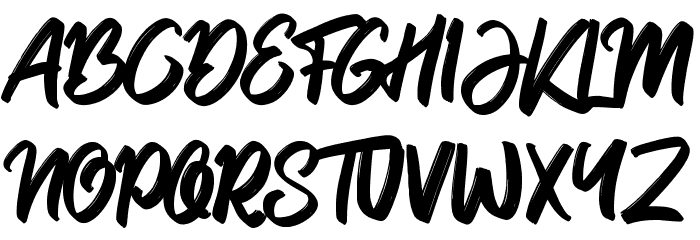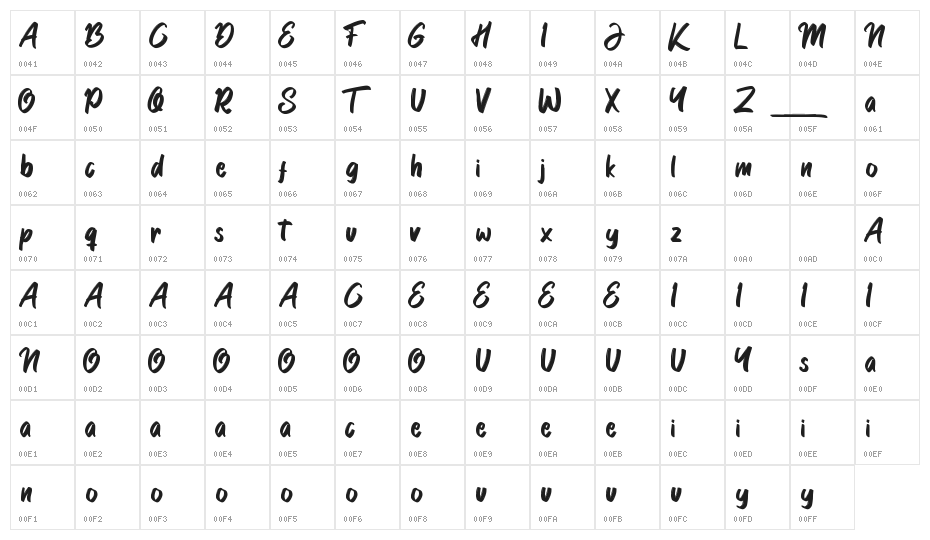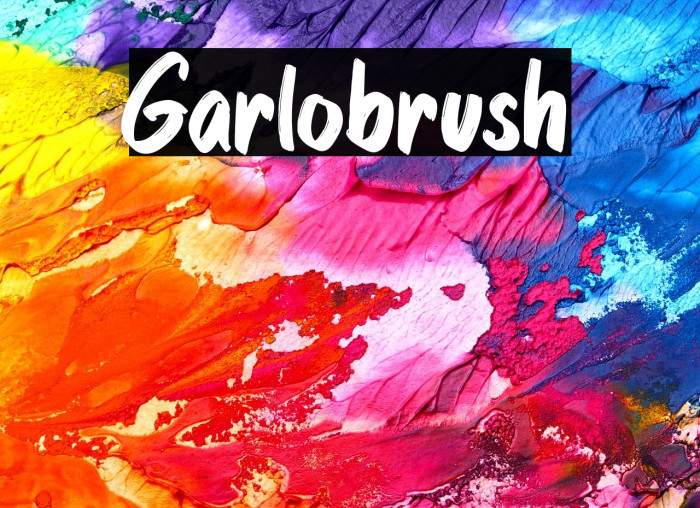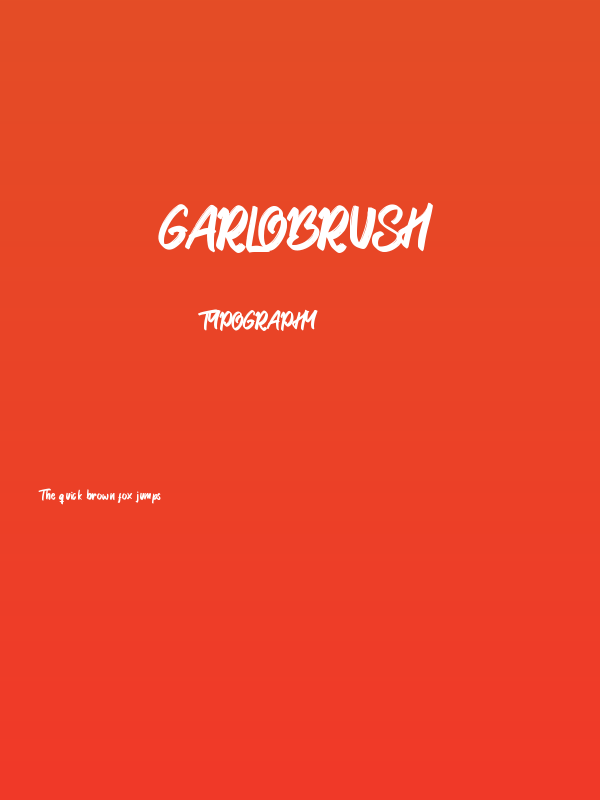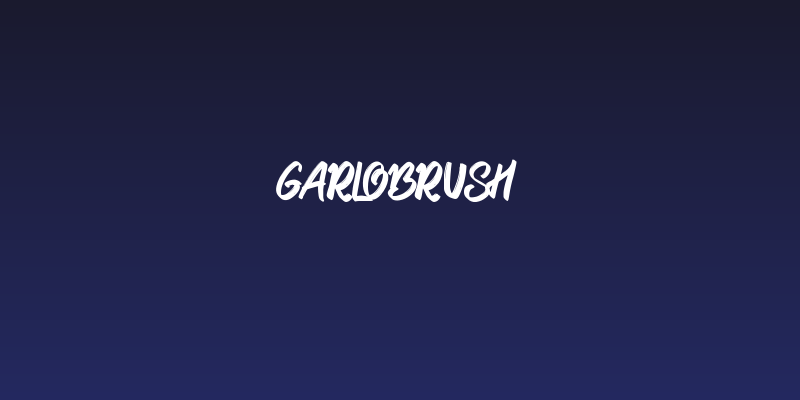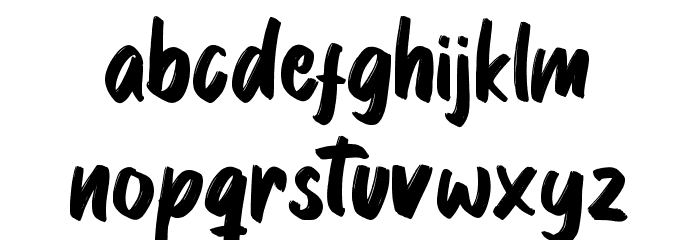
Garlobrush Font
Garlobrush Description
This font features a bold, dynamic brush script style with a strong presence. The strokes are thick and fluid, giving it an energetic and expressive look. Each character is crafted with a sense of movement, making it ideal for designs that require a personal touch. The uppercase and lowercase letters are consistent in style, with a slight slant that adds to the casual, handwritten feel. The numbers and special characters maintain the same boldness and fluidity, ensuring a cohesive appearance across all text elements.